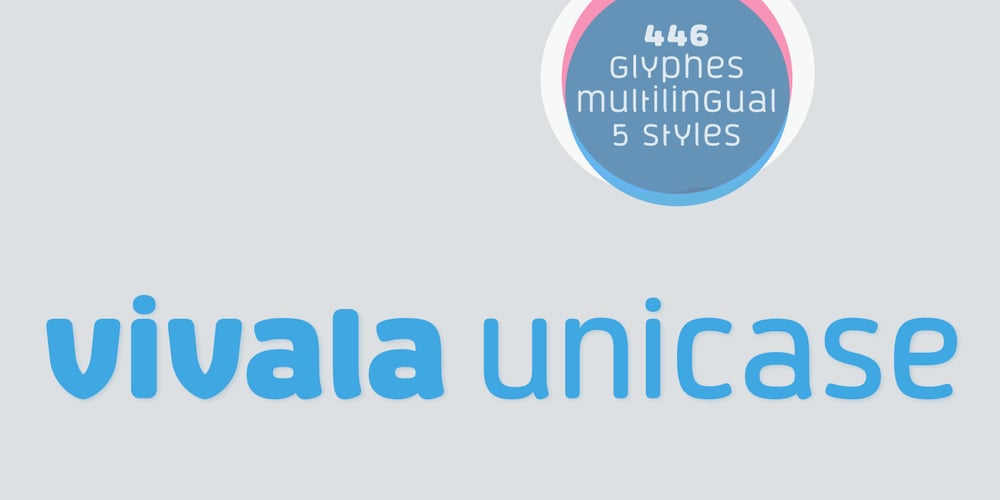
Vivala Unicase Font Family was designed by Johannes Hoffmann and published by Johannes Hoffmann. Vivala Unicase contains 5 styles and family package options. Vivala Unicase is a modern, rounded linear grotesque that is easy to read even in small font sizes. The composition of uppercase and lowercase letters results in a unique typeface. The new version contains five weights, including a boldface, which greatly expands the design possibilities. With an extensive set of characters and symbols, it is ideal for posters, t-shirt design, promotional products, car design, labeling, trademarks and headlines.